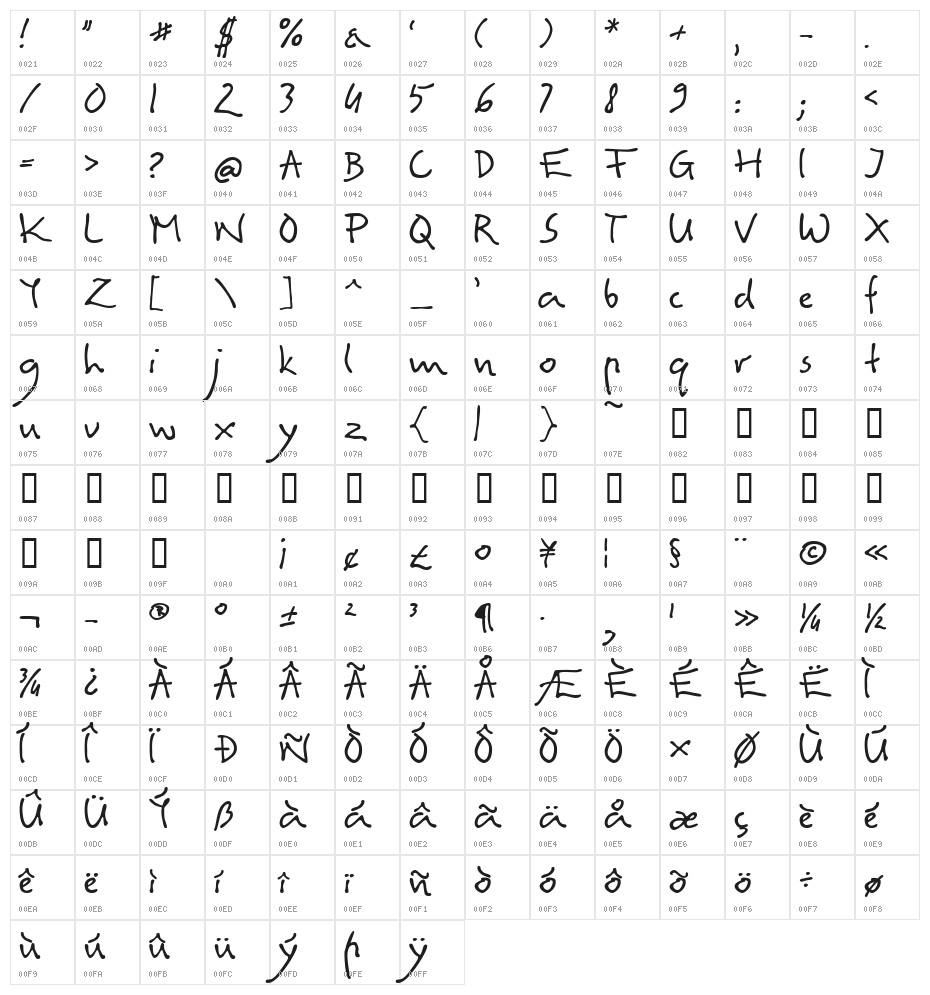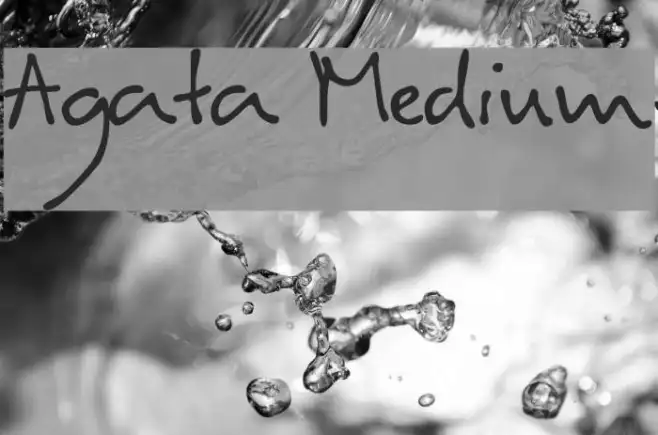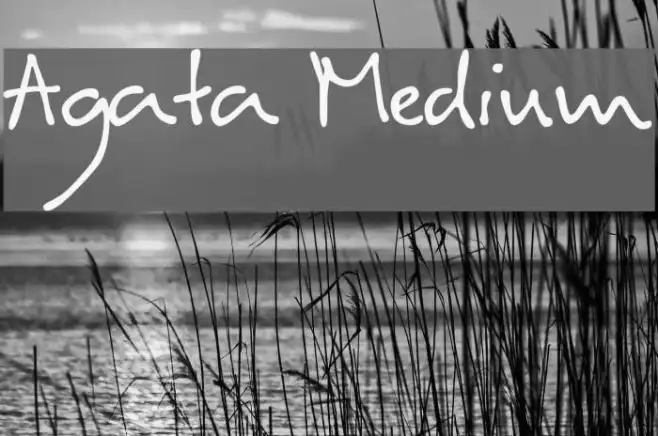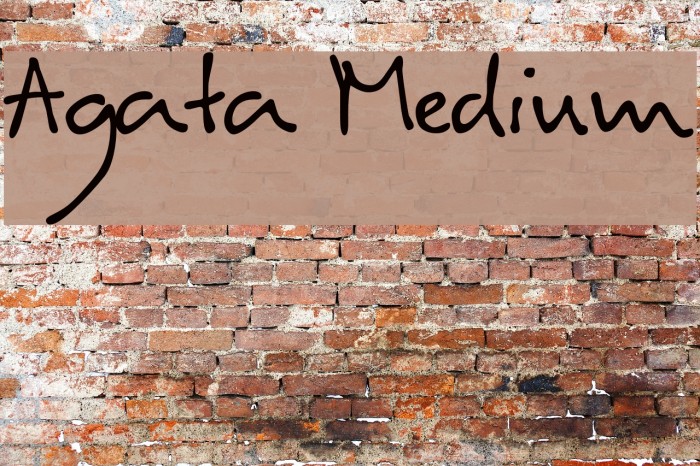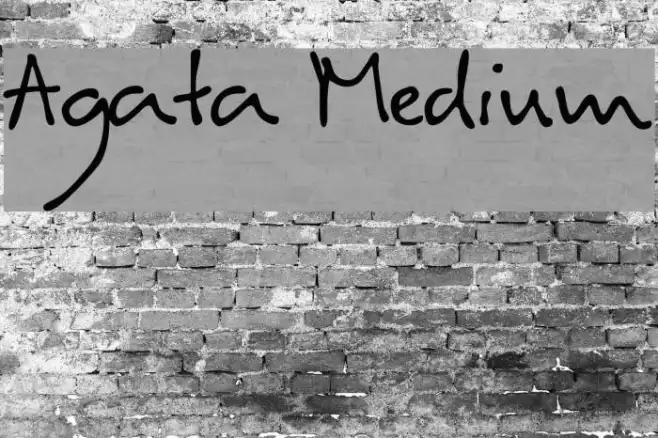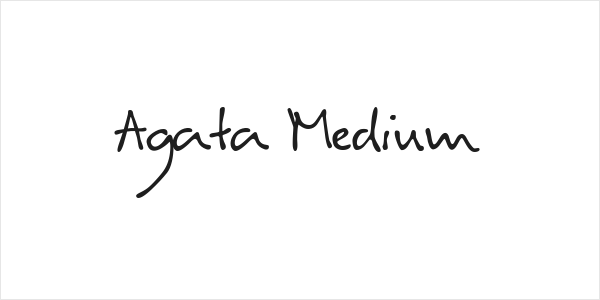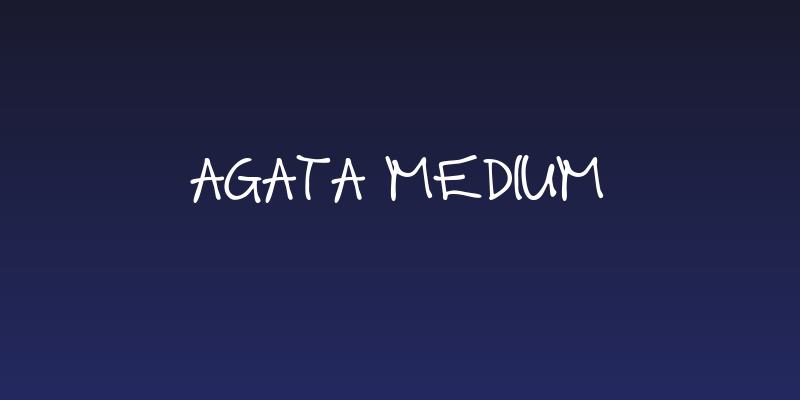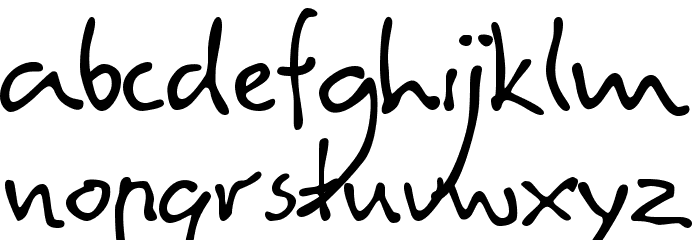
Agata Medium Font
Agata Medium Description
This font features a casual, handwritten style with a playful and informal appearance. The characters are slightly irregular, giving it a natural and organic feel. The strokes are smooth and flowing, with a consistent medium weight throughout. The uppercase and lowercase letters maintain a cohesive look, while the numerals and special characters blend seamlessly with the overall design. This font's relaxed and approachable aesthetic makes it suitable for projects that require a personal touch.